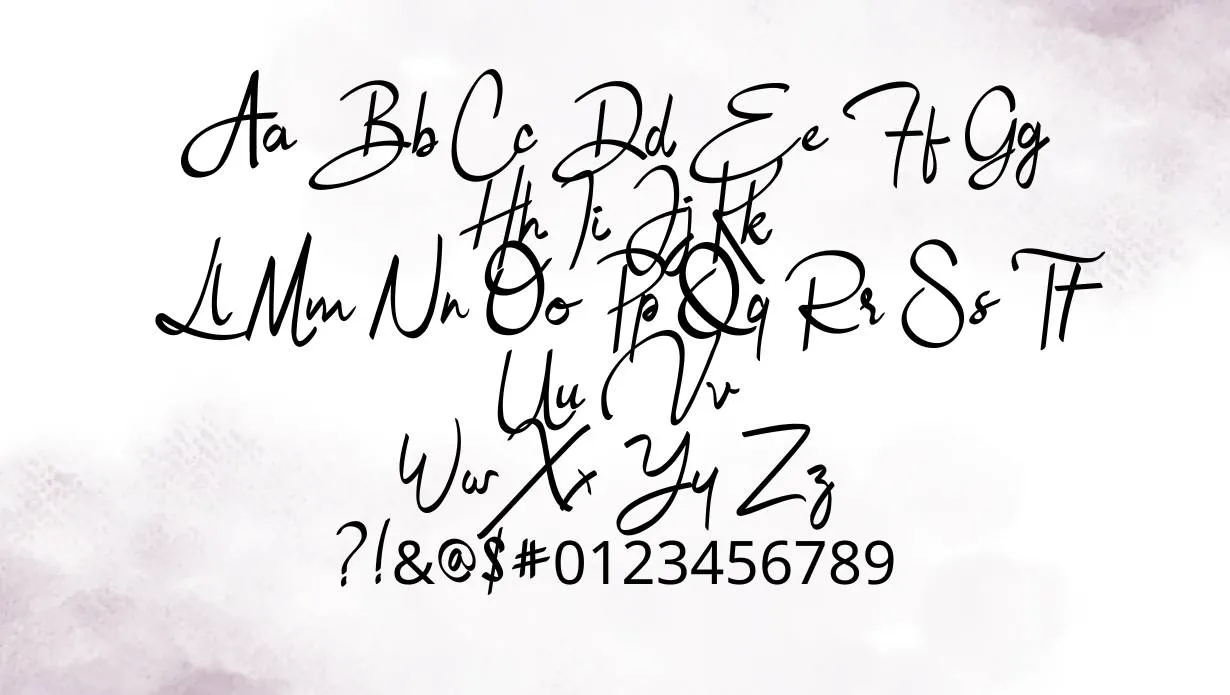
Bulgatti Luxury Script Font is a bold and elegant script typeface with a sense of opulence and sophistication.
The font’s flowing and ornate letterforms add an element of grandeur and luxury to your projects. If you desire to make your design project more captivating, I recommend pairing this font with a unique typeface such as the brock script font.
Bulgatti Luxury Script Font Family
It’s often chosen for high-end branding, luxury products, and designs that aim to convey a sense of affluence and prestige.